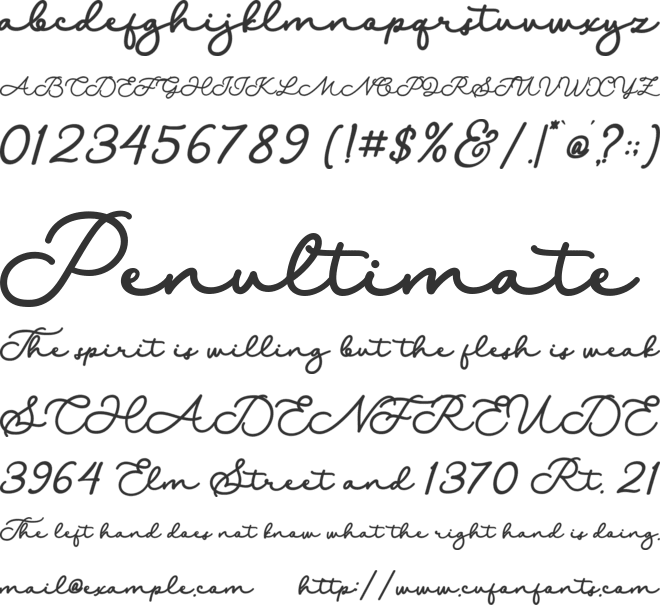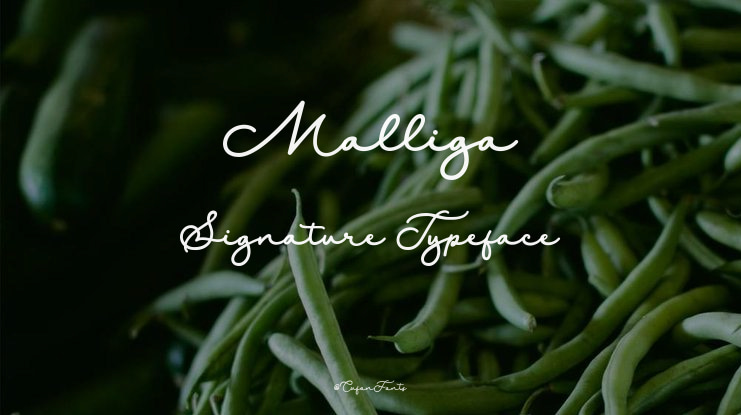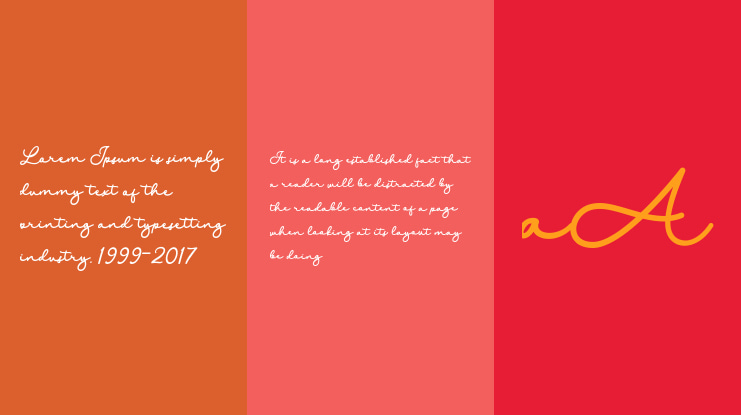
Malliga Signature Font
INTRODUCING Malliga Signature Font
Malliga is a beautifully crafted monoline script that flows effortlessly like a handwritten love letter.